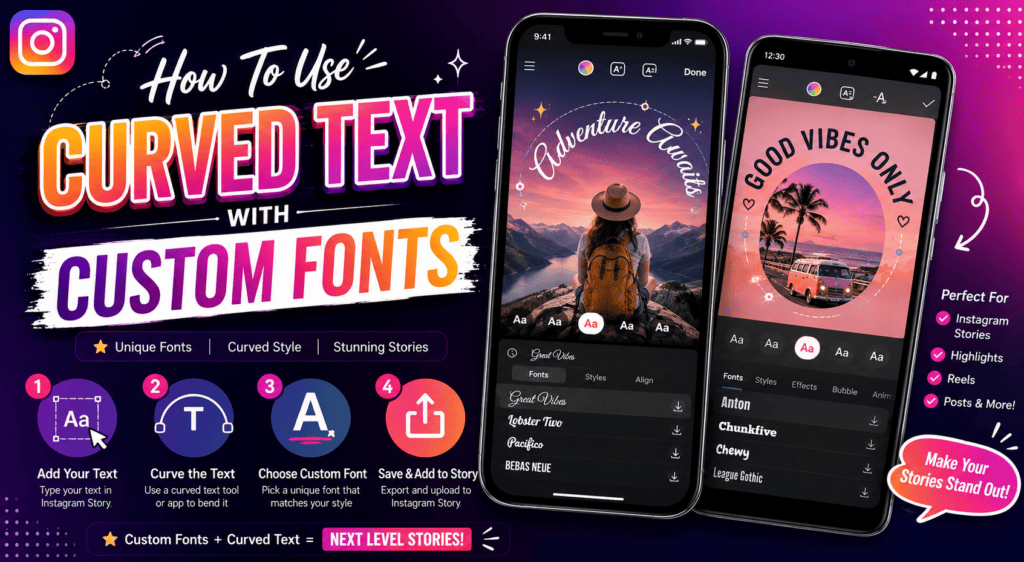
Instagram Stories lack natively curved text feature as aesthetic trends grown past couple years, forcing creators toward external apps stylish designs custom effects since editor sliders warp controls arc fonts colors styles stay simple recognizable.
My go-to method involves Canva free tool on mobile phone camera roll upload where I add bubbly text effects style warp then download PNG transparent layer control creative fancy pairing generator Stories Share Instagram image.
In my workflow, Canva remains easiest method to curve Instagram Story text across iPhone or Android. Open app, create Story canvas size 1080 1920 px, tap Add heading, Type message, pick font, then Effects Curve, Drag slider, Download Image.
Avoid defaults hurting Resolution quality; using too much curve makes full circle accident, not intentional looks. Start small, adjust value subtle. Thin serif gets awkward while bold rounded fonts work better for trending badge look.
Instagram’s platform deliberately avoids built-in curved typography, forcing creators toward third-party workaround solutions that transform static Stories into visually striking arched narratives across iOS and mobile devices without native editor support ever provided by Meta.
Through experimental design, I discovered adjustable curvature paired with CapCut’s fisheye effect creates memorable covers that defy standard social media expectations while direct upload route methods remain surprisingly effortless for genuine personal branding success today.
Why Instagram Doesn’t Have A Curved Text Tool
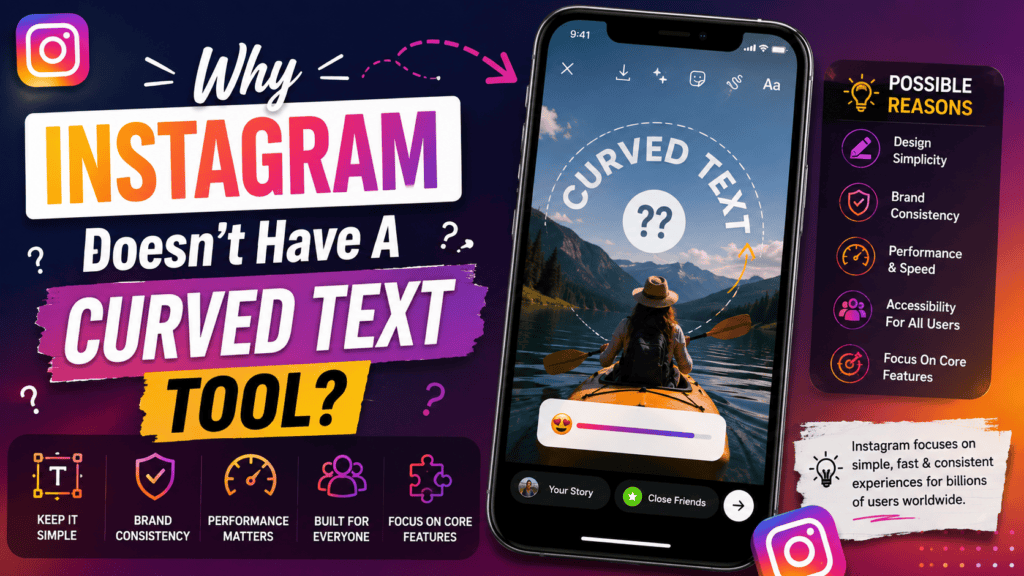
I noticed Instagram lacks native curve feature since app interface keeps tools simpler yet user-friendly while avoiding dedicated option that technically distorts visual path into experimental result for static images video clips content workflow platforms 2026.
I prefer standalone Edits since built-in curve tools never produce beautiful effect on mobile so creators copy paste Unicode captions bios directly onto Story background overlay any device without dedicated desktop laptop Google Search 2026.
Curve Text Using Canva (Easiest Method — iPhone & Android)
Designing curved stories in Canva feels effortless once you plan upward or downward arcs. I preview how left and right bends match my brand before committing. The cool library helps without needing any Pro subscription.
Choose an editorial style that produces striking feed designs. I apply gentle arcs instead of tight circles so words remain clear on iOS devices without visually freaky or unusual placing while true difference creates results.
Tips For Canva Curved Text
The bottom menu hides Canva’s curve icon; Select it, Scroll left to reveal the toolbar. Increase or decrease bend with a swipe. Keep your box proper and Save design so Instagram saved stories shine.
Preview dozens of retro cursive styles, mixing chunky and darker tones. I selected a gothic combination that made curved text instantly readable. Screenshot the result, Combine with native tools, then Export clean lifestyle content fast.
Curved Text Over Video Using CapCut Or Instagram Edits
CapCut remains my best find for warped Reels, making high-contrast cover catch every glance. I bring methods faster than browser generator website tool, so digital post popular professional aesthetic fits across different versions easily right.
Basic edits lack Arc Path, so LightX Custom edits shape semi-circular word spacing. Tweak necessary endpoints across dark photo Layer bring organic fisheye-warped aesthetic works across different versions easily, applies popular professional methods stylish Reels.
Instagram does not include a native curve control, so the most reliable approach is creating the design elsewhere, then importing it. On iOS and Android, the workflow is nearly identical, though button placement may vary.
From practical testing, export at the highest resolution before posting; otherwise, curved lettering can become blurry or compressed. Always preview decorative characters, since Unsupported symbols may render as boxes on certain devices or accounts unexpectedly.
Use A Curved Text Generator (Desktop)
On desktop, I prefer a Web Generator because its wider workspace makes alignment more Precise. After searching several tools, choose one that returns a Clean preview before exporting, especially when story lettering needs consistent spacing.
Keep the curve modest, then test the Online result against Instagram’s vertical canvas. I usually save an editable template, export a transparent file, and compare color, shadow, and outline options before uploading the final artwork.
Curved Text On iPhone Vs Android: Is There A Difference?
On iPhone and Android, curved text behaves differently because editing apps, font rendering, and export controls vary. From testing both platforms, I find iPhone workflows smoother, while Android offers broader customization through flexible third-party tools.
Advercase is a retro serif typeface popular in Instagram Reels for its elegant, stretched letterforms. In my design work, pairing it with fisheye distortion, tight spacing, and curved layouts creates the recognizable editorial, vintage-inspired trend.
What Is The Fisheye Text Effect?
The fisheye text effect bends lettering outward from its center, creating a rounded, lens-like distortion that makes captions feel wider, dimensional, and energetic. In my edits, subtle curvature preserves readability while strengthening Instagram visuals instantly.